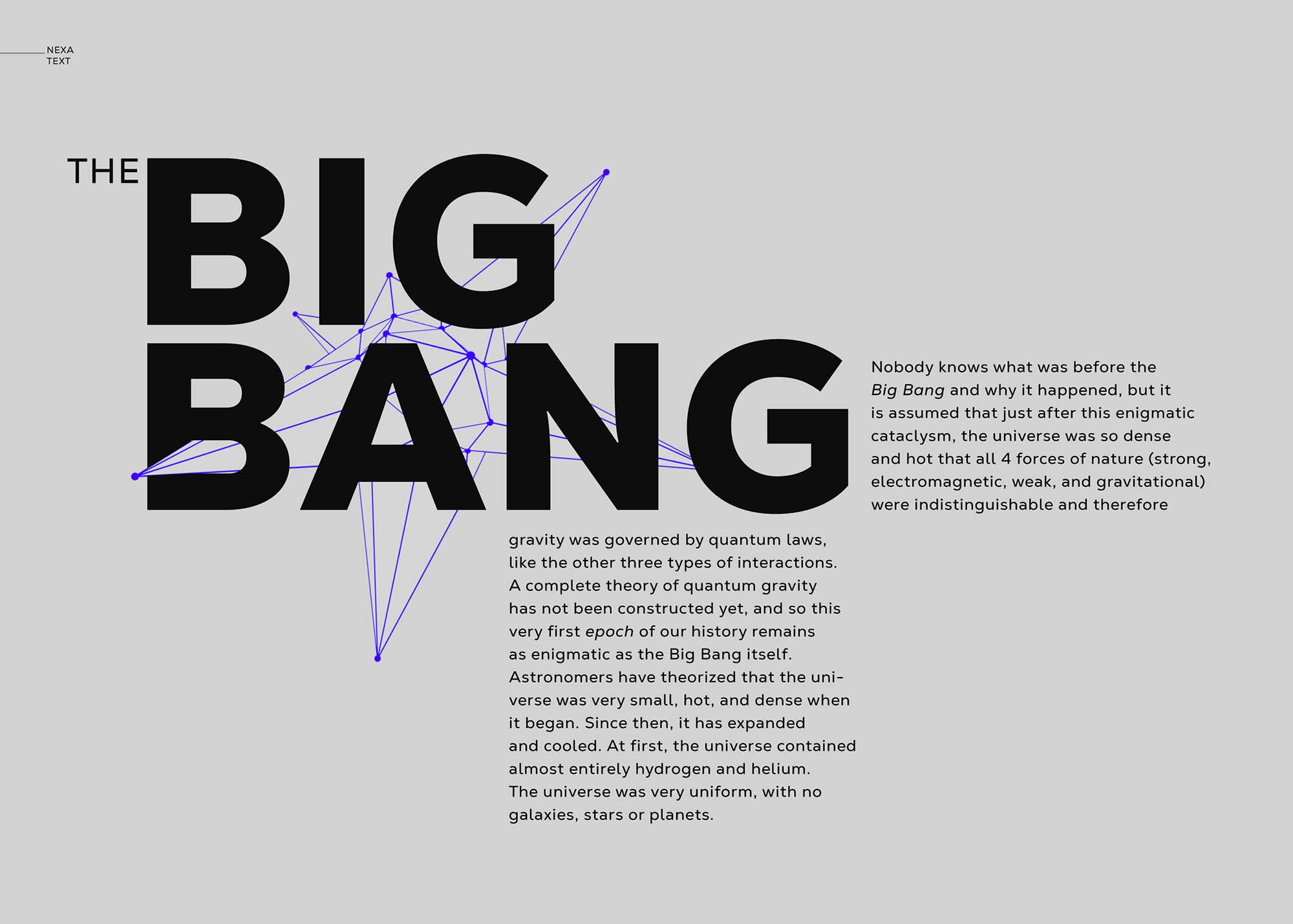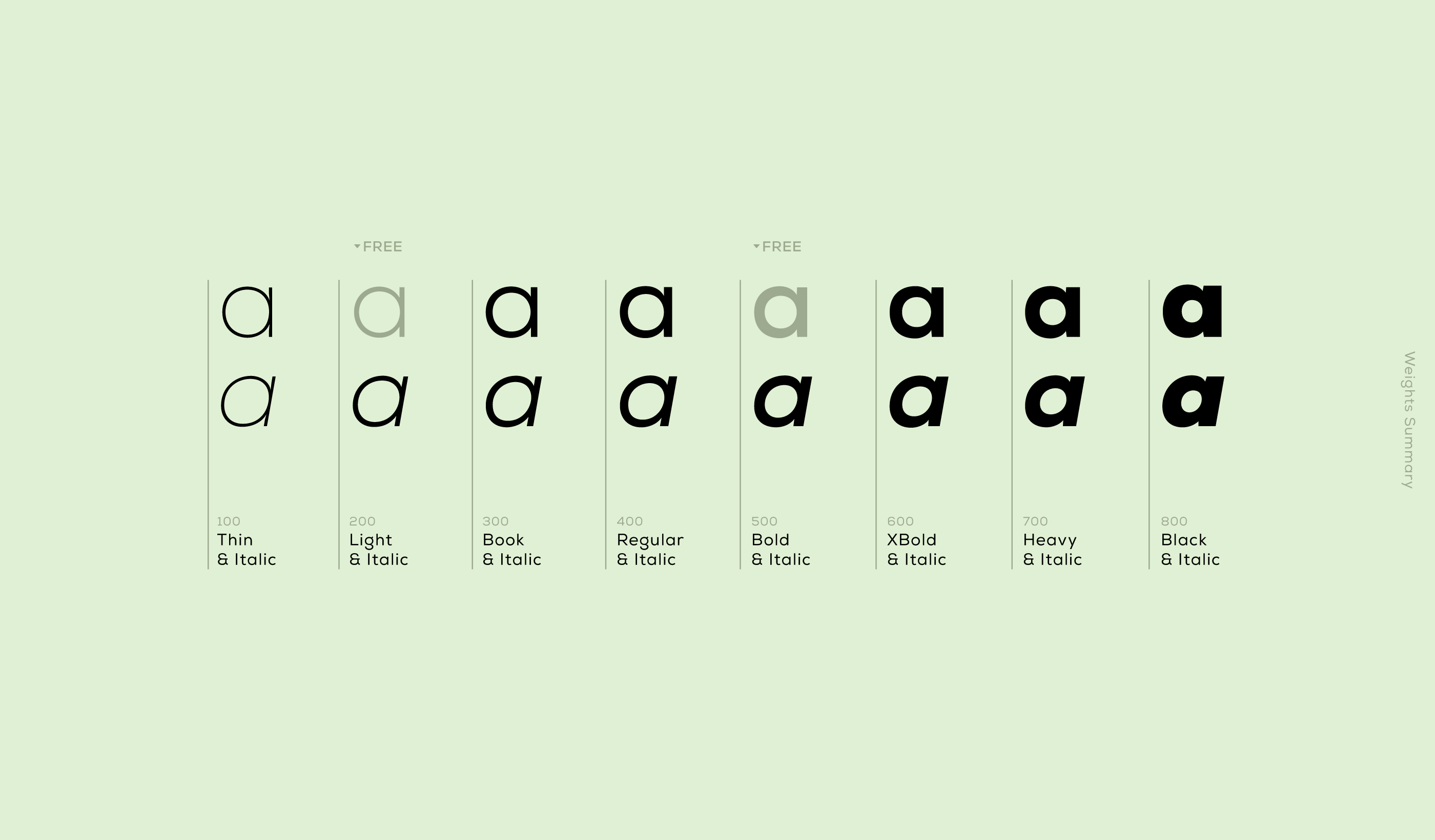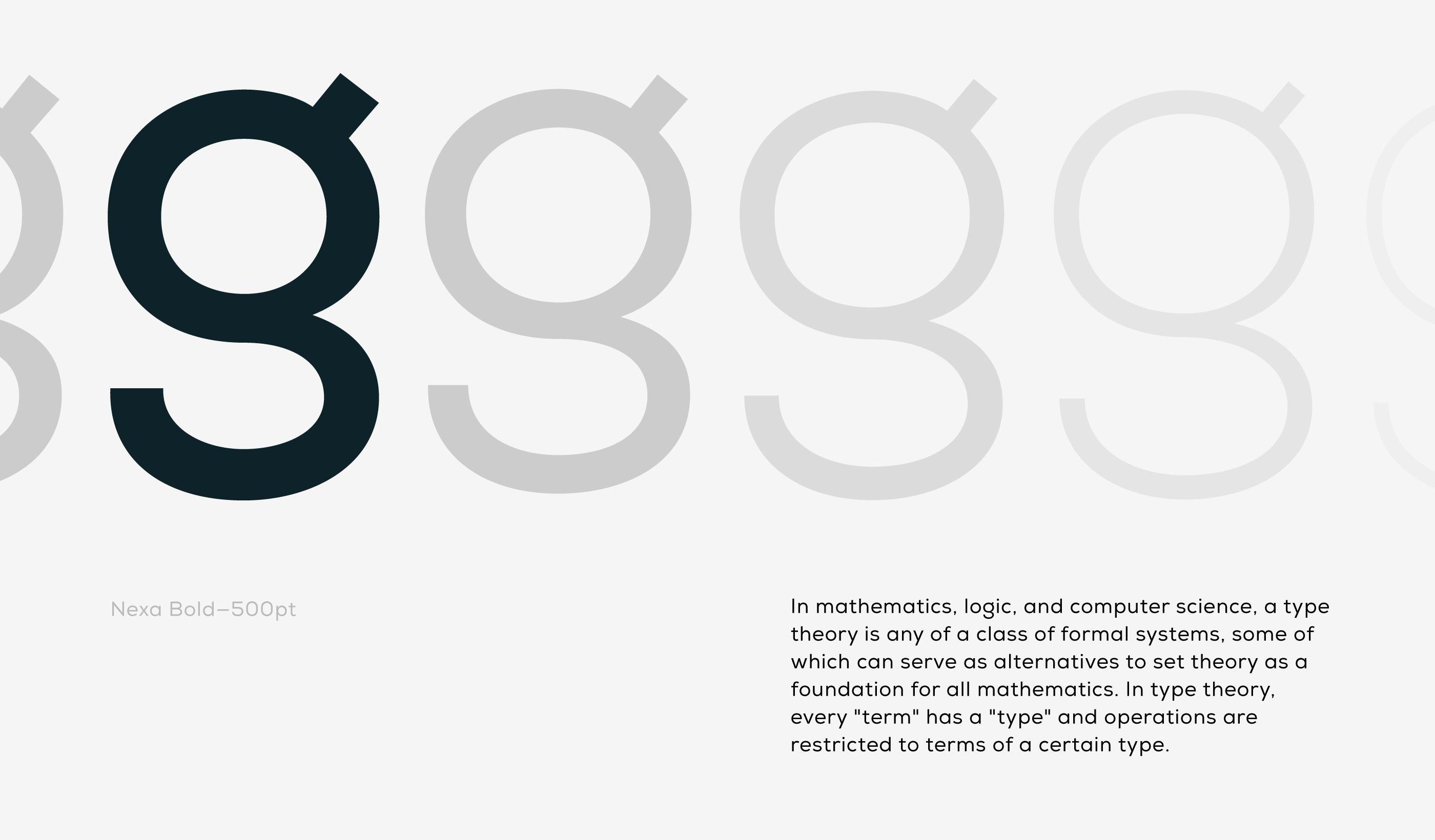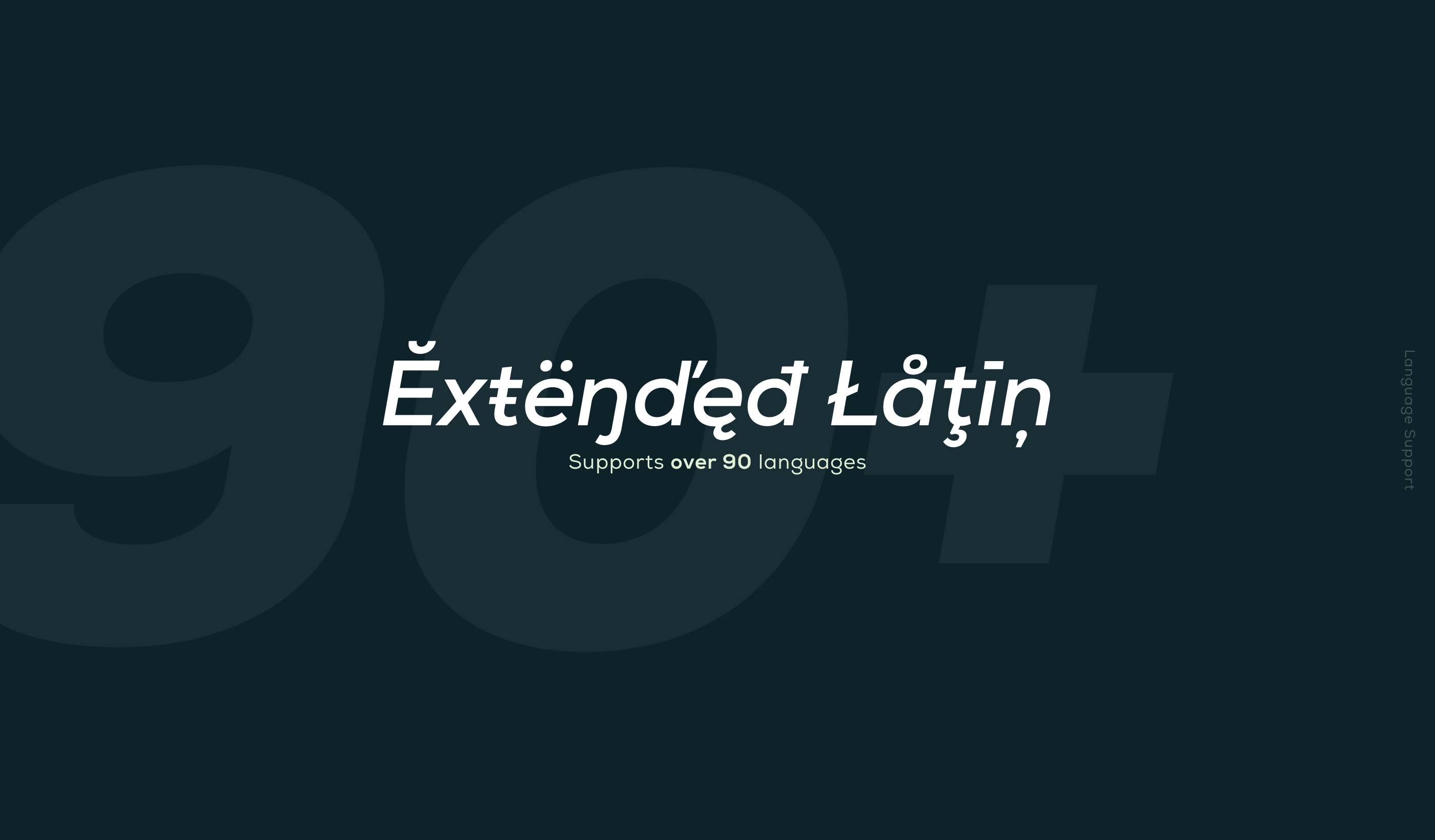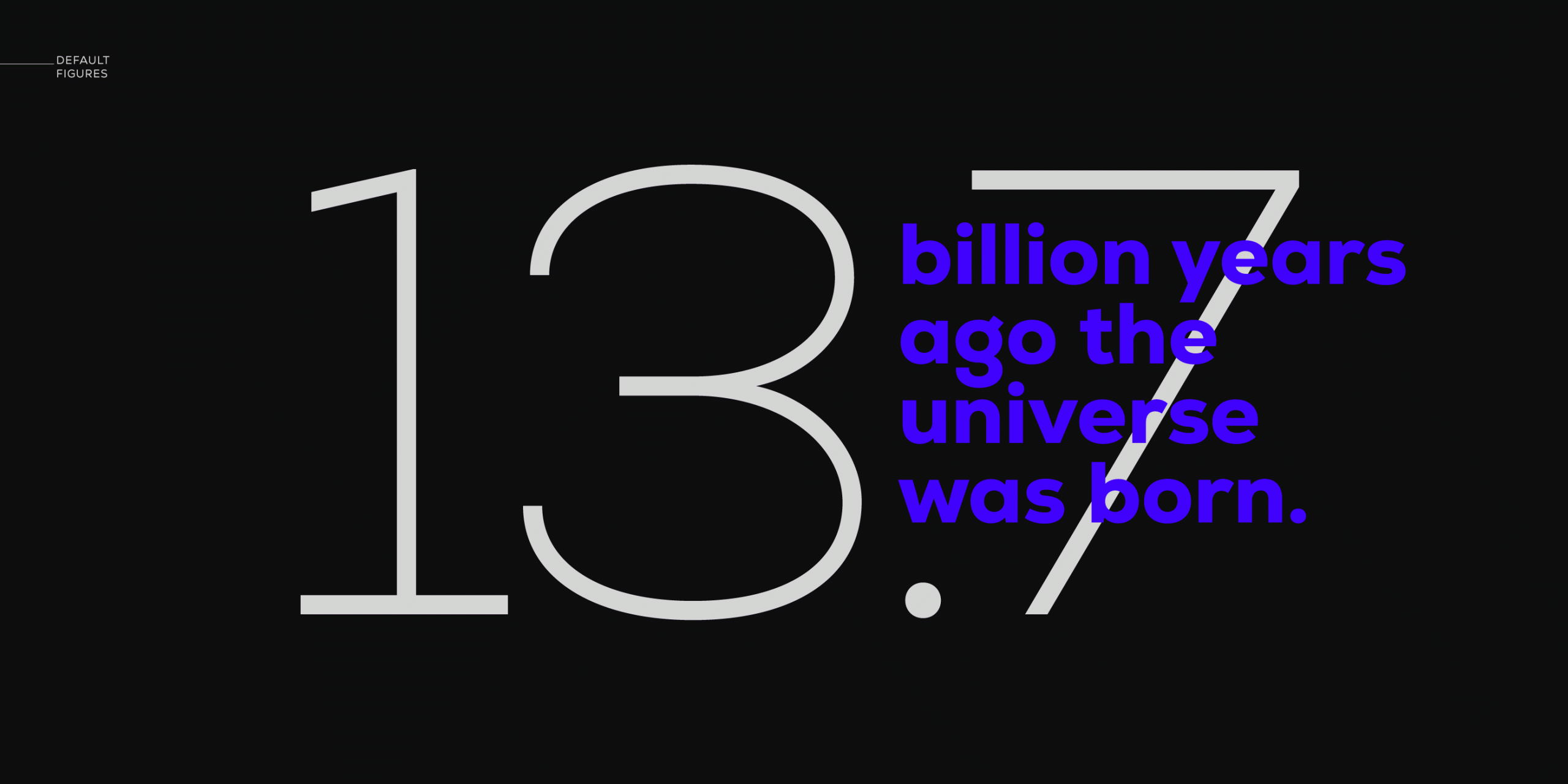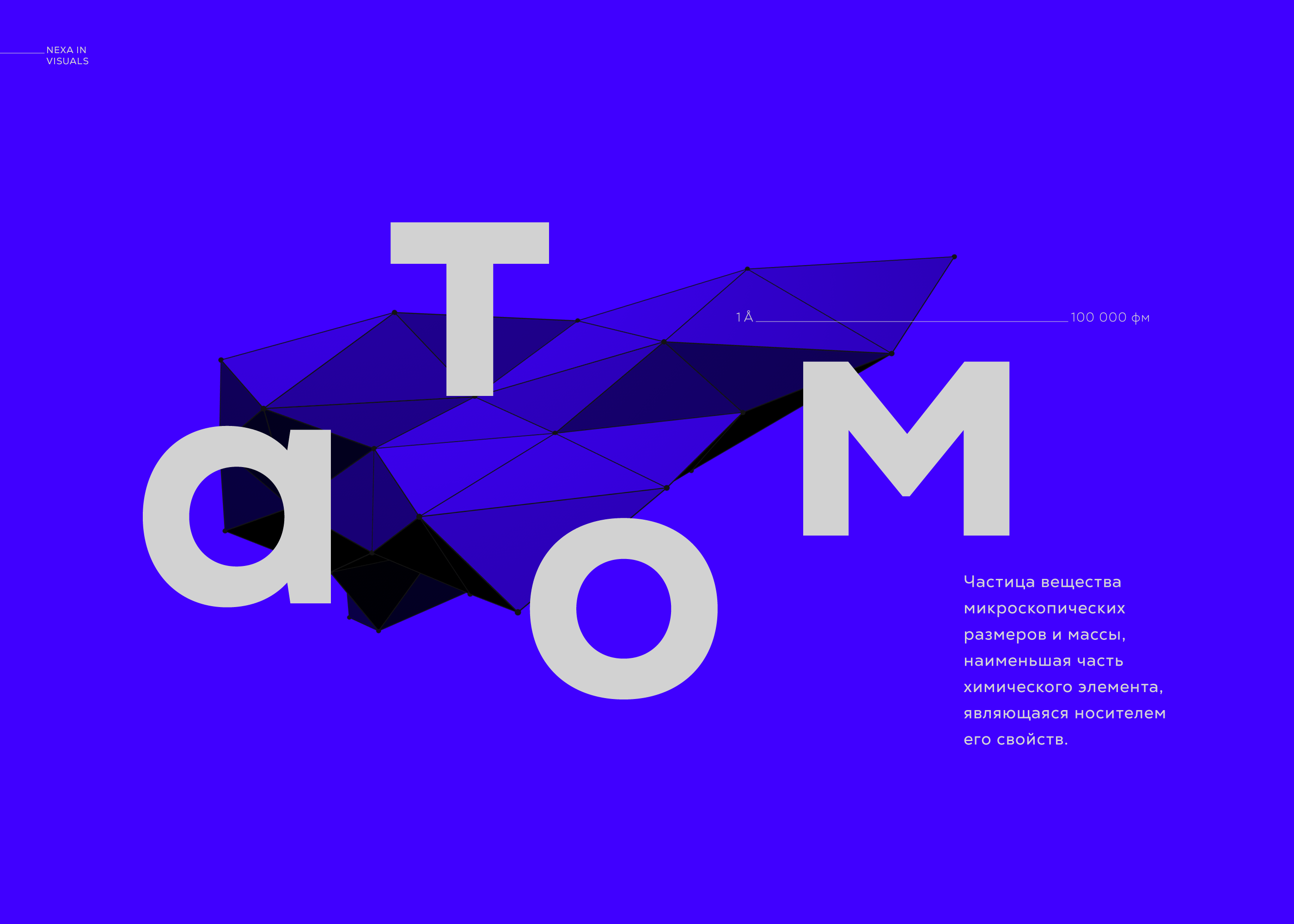
There are many advanced models of this typeface are available that provides different weight that is extra light. Nexa is a modern sans serif font family, with a geometric touch. The nexa font was released by fontfabric foundry and has procured immense acknowledgement since its.
Nexa font family free download. Perfectly suited for graphic design and any display use. It comes in 36 styles, clean and modern caps, thereby creating more variability.
Black Italic), 105 Characters In Total.
Perfectly suited for graphic design and any display use. Nexa font (nexa bold font) is suitable for headlines of all sizes, as well as such as text cubes that can are available from maximum and minimal variations. This typeface comes with a family of its own.
It Could Easily Work For Web, Signage, Corporate As Well As For Editorial Design!
Nexa Font Family Is Suitable For Headings Of All Sizes And Text Blocks In Both Maximum And Minimum Width And Height.
It Comes In 36 Styles, Clean And Modern Caps, Thereby Creating More Variability.
Nexa rust sans font family series mainly provide bold,regular and other font styles. Nexa black is a sans serif type font that can be used on any device such as pc, mac, linux, ios and android. This font created by svetoslav simov.